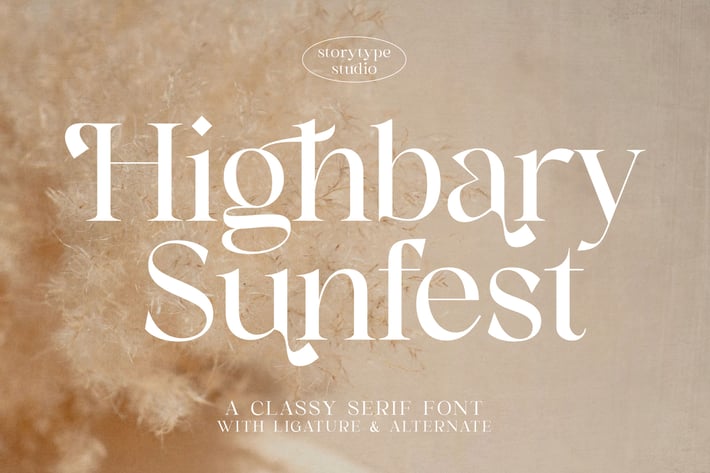
Highbary Sunfest Classy Serif Font
Highbary Sunfest is a classy modern serif with elegant curves, refined contrast, and subtle ligatures that bring sophistication to any layout. Its polished, timeless character makes it perfect for luxury branding, editorial designs, and social media content with a warm, high-end aesthetic.
Classy serif style with smooth curves and refined transitions
Beautiful ligature and alternate characters for added elegance
High-contrast letterforms suited for premium headlines
Works seamlessly for both digital designs and printed materials
Luxury branding & boutique identity
Editorial layouts & magazine titles
Fashion, beauty, and lifestyle campaigns
Social media posts & refined moodboards
Packaging, labels, and product design
Elegant invitations & promotional materials
Timeless serif elegance for warm, sophisticated design stories.